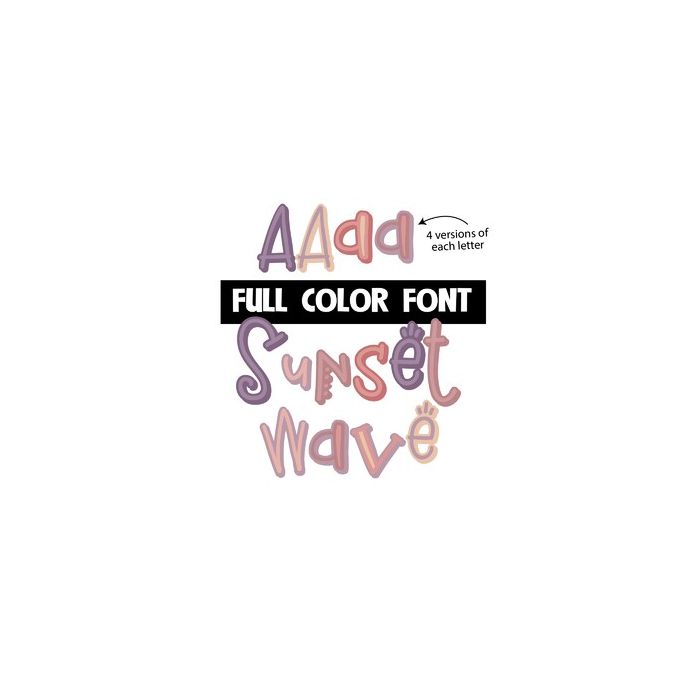
sunset wave color font
This full-color font features a whimsical, crafty font in a fun color palette. There is an alt case you can access through Silhouette's glyph map.